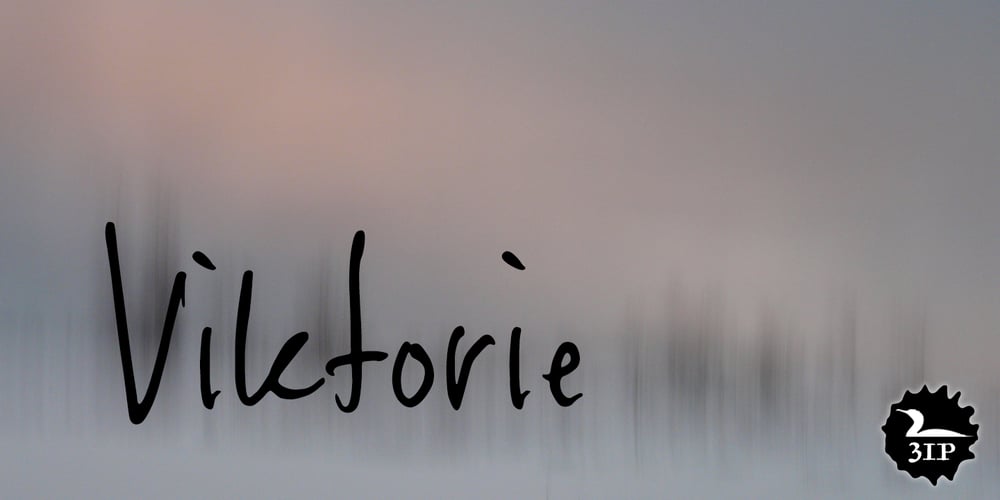
Viktorie
Viktorie font
Viktorie Font Family was designed by Brian Willson and published by Three Islands Press. Viktorie contains 1 styles and family package options. Viktorie might easily be mistaken for the handwriting of a note-taker in a hurry: it looks swiftly jotted down. These energetic characters pay little heed to such arbitrary contraints as baseline or x-height — taken together, they give the effect of casual penmanship that’s both curiously legible and inspiringly unleashed. Viktorie has a single, medium-light weight and comes, of course, with a full character set.